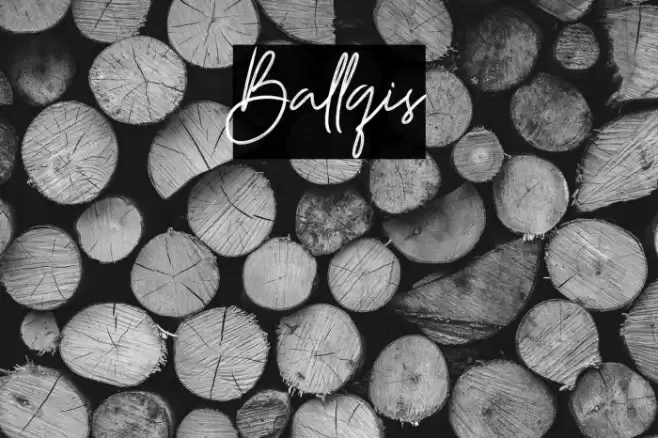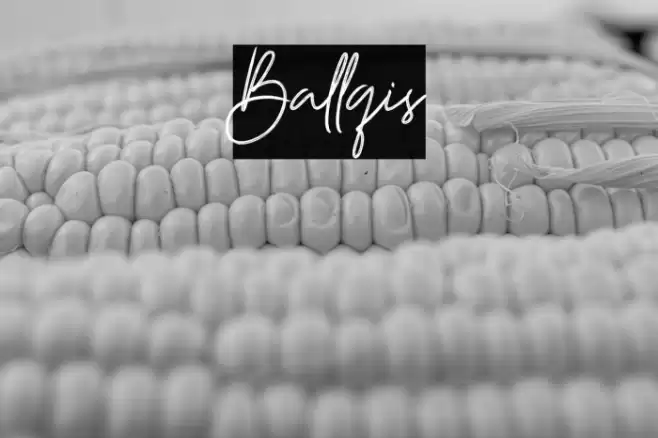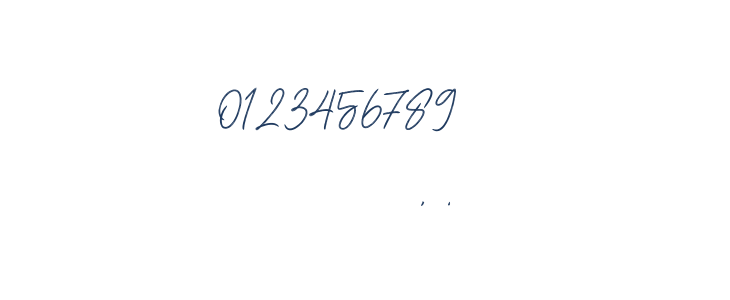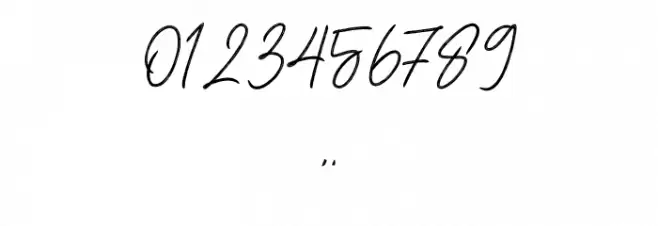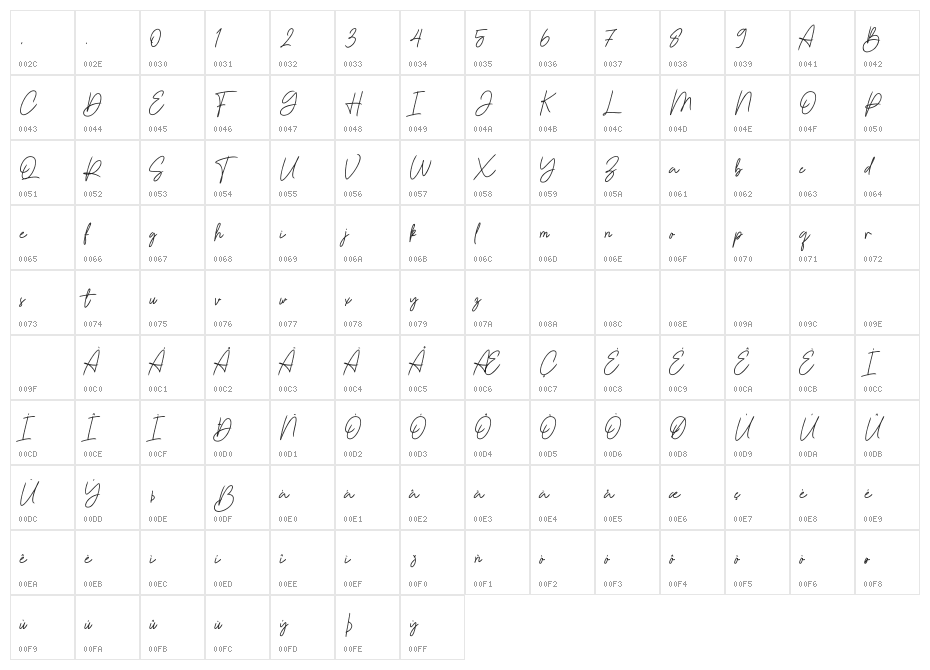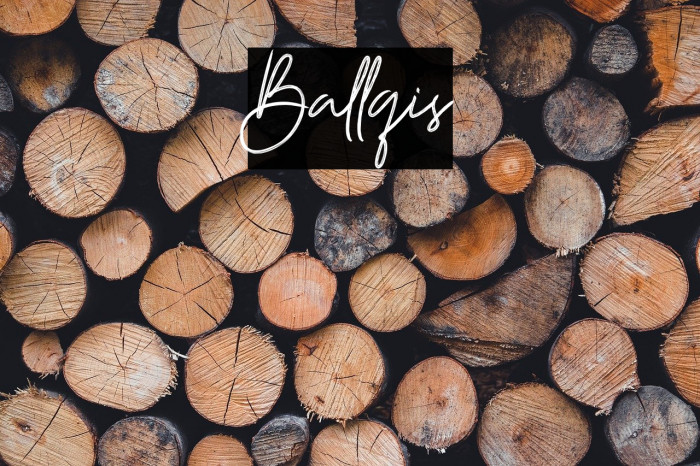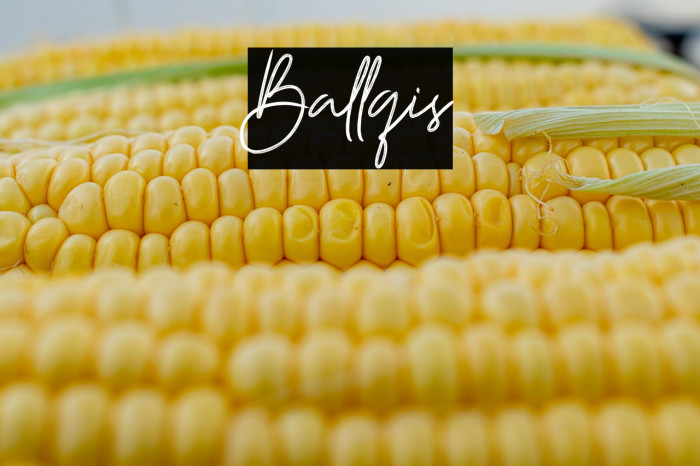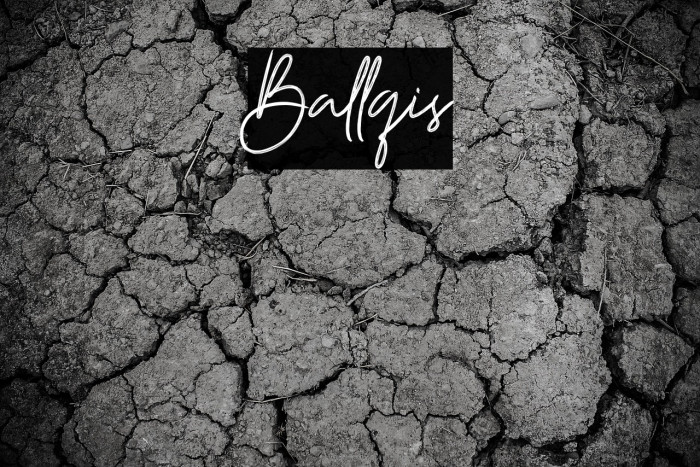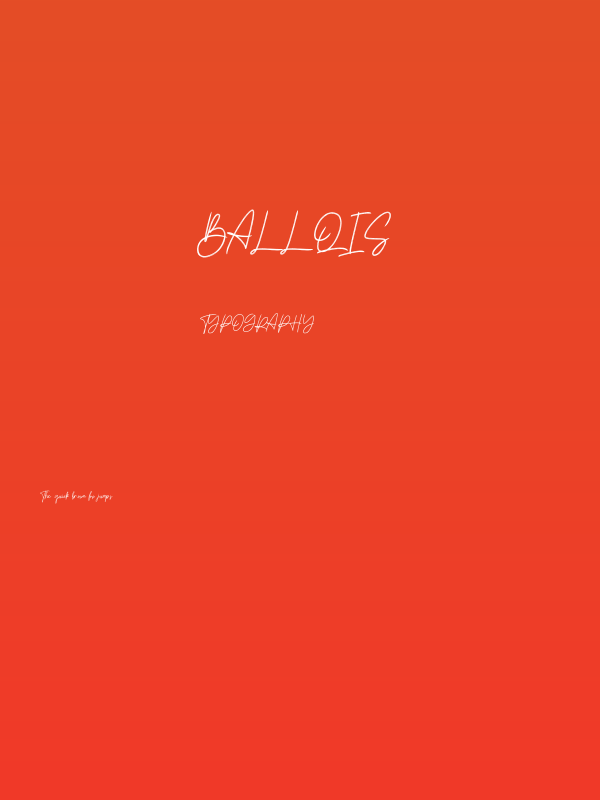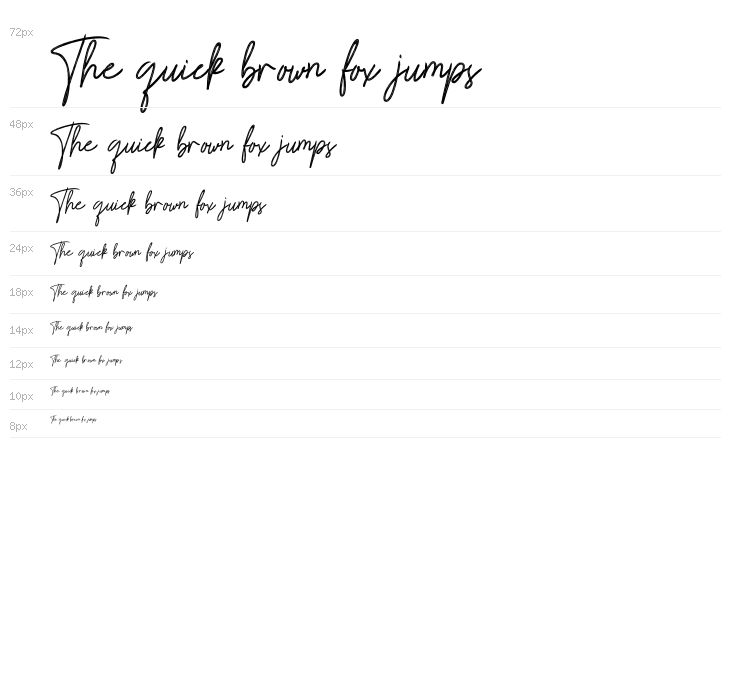
Ballqis Font
Ballqis Description
This font exudes a casual and elegant handwritten style, characterized by its flowing, cursive script. The letters are interconnected, giving it a seamless and fluid appearance. The strokes vary in thickness, providing a dynamic and lively feel. The uppercase letters are tall and slightly slanted, while the lowercase letters maintain a consistent baseline with gentle curves. The numerals are distinct yet harmonize well with the alphabet, maintaining the same handwritten aesthetic. This font is perfect for projects that require a personal touch, such as invitations, greeting cards, and branding materials.
A casual, elegant handwritten script with fluid, interconnected letters from Regular fonts.
- Proposed Projects: Ideal for invitations, greeting cards, personal branding, and artistic projects.
- Overall Style: Casual, Elegant
- Use Case: Logos, Invitations, Greeting Cards